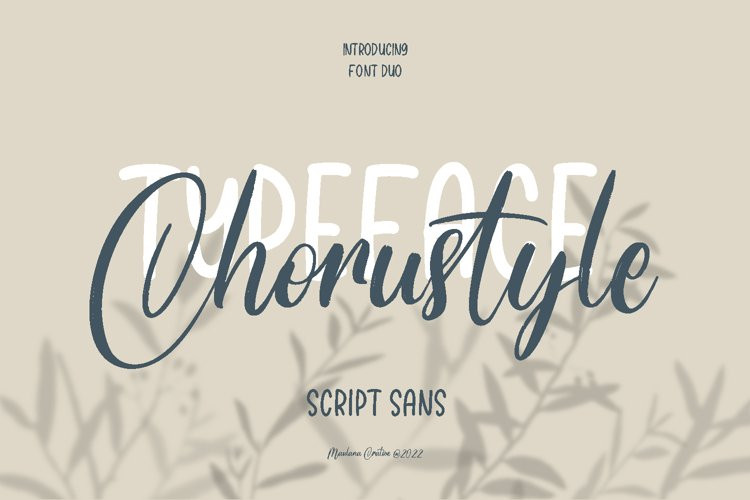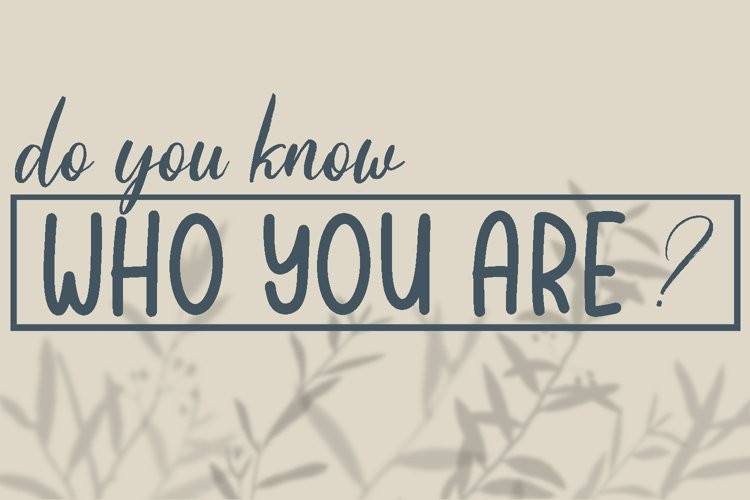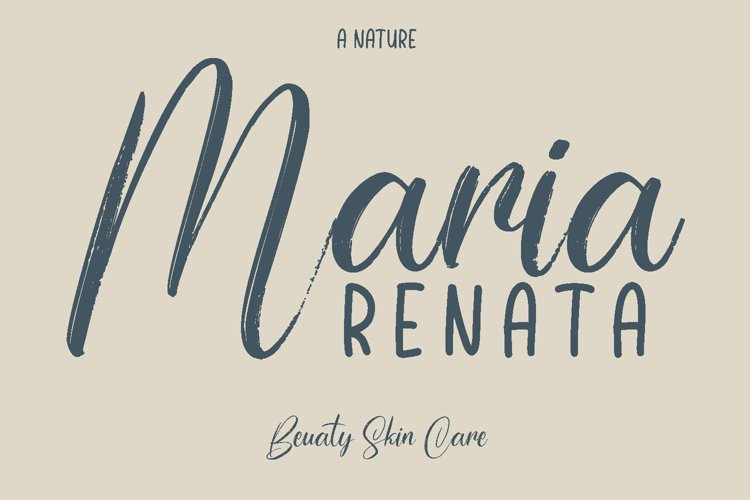
Chorustyle Font
Chorustyle FontChorustyle is a various font script combine with handwritten sans serif font. With regular brush contrast stroke and clean mono-line sans, fun character with a bit of ligatures and alternates. To give you an extra creative work. Chorustyle font support multilingual more than 100+ language. This font is good for logo design, Social media, Movie Titles, Books Titles, a short text even a long text letter and good for your secondary text font with sans or serif. Make a stunning work with Chorustyle font.